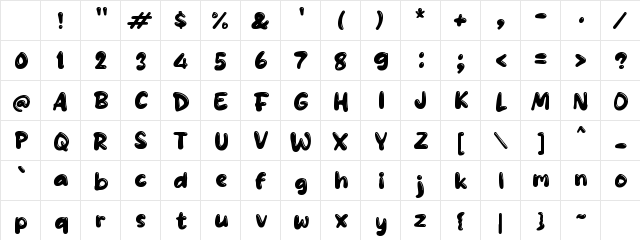
Complete Sabocan Regular glyph index. Displaying only characters natively supported by Sabocan Regular font.
Sabocan is a composed and adaptable typeface that performs quietly and consistently across a wide range of design contexts.